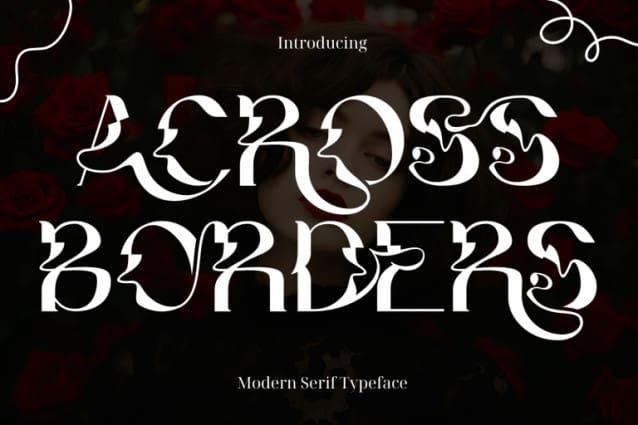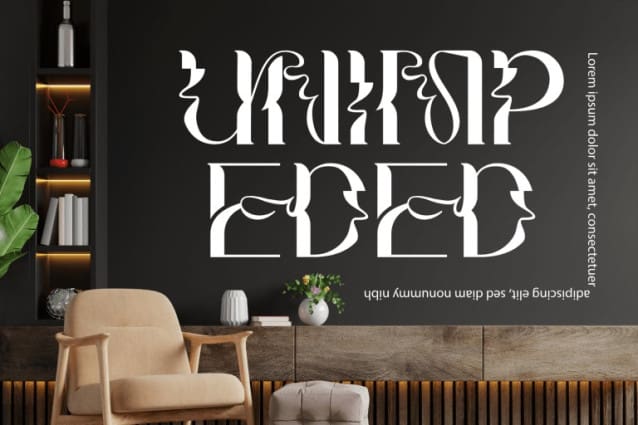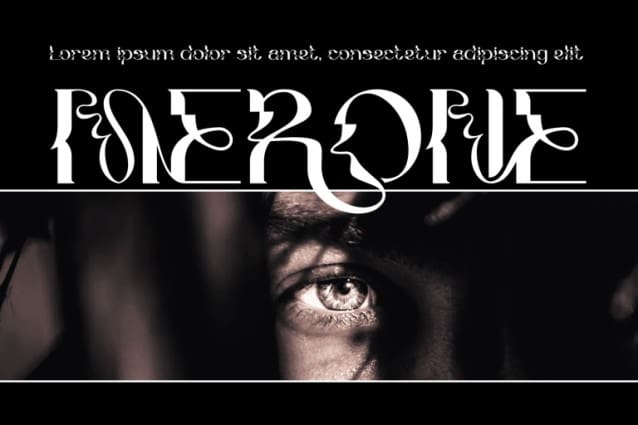
Across Borders Font
Across Borders Font is a highly decorative serif display font that blends avant-garde experimentation with classical typographic elegance. Its distinctive forms feature interlocking curves, mirrored silhouettes, and fluid strokes that resemble abstract faces and organic shapes — resulting in a font that is both mysterious and deeply artistic. This font embodies a surreal harmony between structure and movement, where every letter carries sculptural weight and ornamental rhythm. The interplay of positive and negative space creates an intriguing visual illusion, making ACROSS BORDERS perfect for fashion branding, editorial design, luxury packaging, posters, and art-driven projects that demand sophistication and uniqueness.